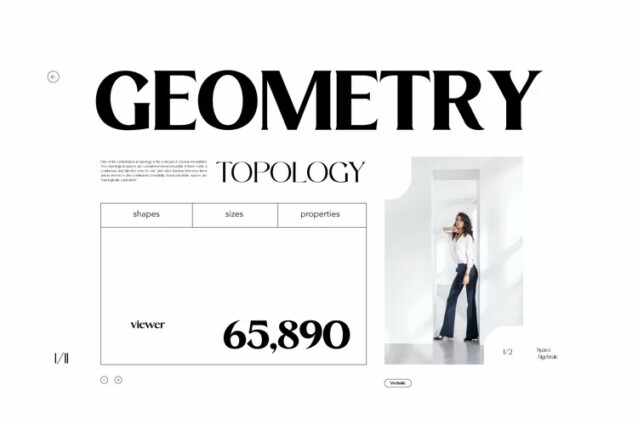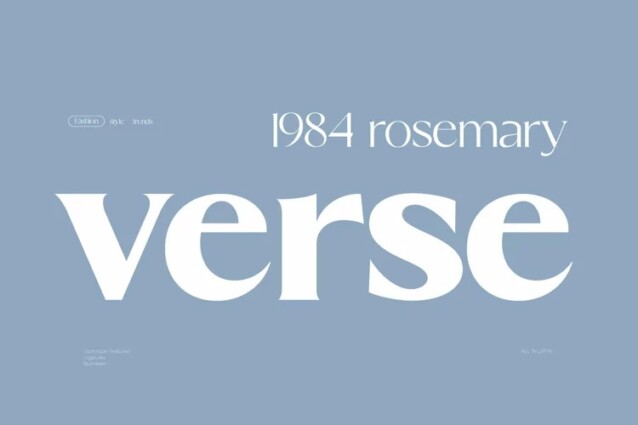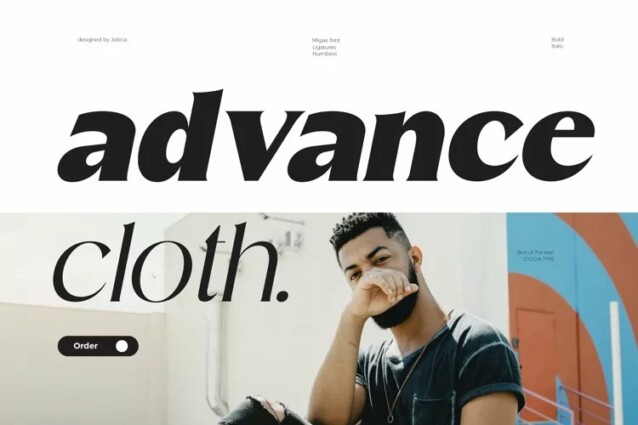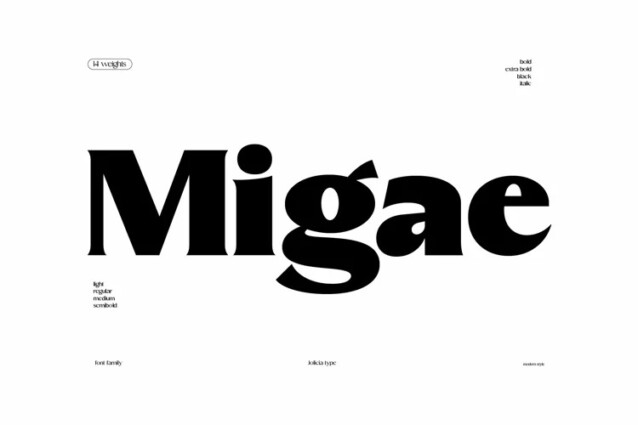
Migae Font is a contemporary high-contrast serif typeface with a distinctive look. This font is a versatile and elegant display font designed to captivate and engage audiences across a wide range of design applications. With 14 distinct weight variants spanning from delicate Light to commanding Black, and complemented by a refined set of italics, Migae offers a harmonious balance of strength and elegance to fulfill your typographic needs.